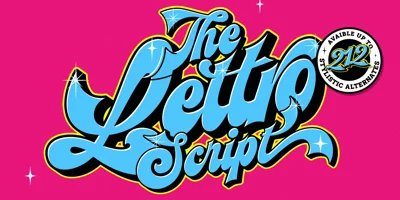
Lettro Script
Lettro Script Font
Lettro Script Font is perfect for personalized letter writing services, handwritten correspondence branding, custom stationery designs, vintage letter-themed packaging, calligraphy workshops, and authentic script projects. Its epistolary character makes it ideal for letter writing boutiques, personalized greeting card companies, vintage mail-themed cafés, correspondence coaching services, and any application requiring handwritten typography that conveys personal intimacy, authentic communication, and the timeless art of letter writing traditions.
Lettro Script Font is exciting because it revives the lost art of handwritten correspondence through gracefully flowing letterforms that capture the personal warmth and intimate connection of handwritten letters. Its script proportions and pen-like details evoke the thoughtful moments of crafting personal messages and the emotional depth that only handwritten communication can convey, making it perfect for brands celebrating authentic human connection through written word. The font's epistolary character transforms digital text into personal letters that touch the heart.
Lettro Script Font family includes letter-inspired weight variations typically featuring Light, Regular, and Medium options with flowing script styles that mirror natural handwriting rhythm. The family often incorporates letter-writing symbols, postal ornaments, and correspondence elements designed for personal communication applications, providing designers with comprehensive tools for creating authentic, letter-focused typographic compositions.
When selecting handwritten correspondence typography solutions, Lettro Script Font represents an exceptional choice for personal communication projects. This intimate typeface brings instant letter-writing authenticity to any design, making it invaluable for stationery companies, personal branding consultants, and communication coaches celebrating handwritten traditions. Whether you're developing personalized stationery collections, creating letter-writing workshop materials, or designing correspondence-themed marketing campaigns, Lettro Script Font provides the personal intimacy and handwritten authenticity essential for reviving meaningful written communication in today's digital-dominated correspondence landscape.